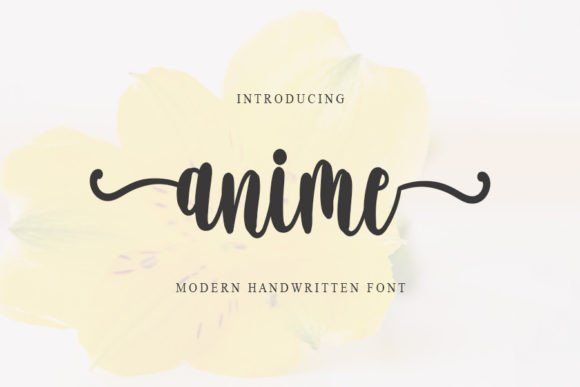
Discover the Timeless Charm of Anime Font
Who hasn’t had that moment when a beautiful font captures their imagination and sparks a creative idea? For many designers, that moment is what drives their passion for typography. It’s the thrill of the hunt for the perfect font that sets the tone for a project, and for those who’ve worked with it, Anime Font is a true gem.
Anime Font is a carefully crafted, handwritten font designed to evoke the charm of classic calligraphy while feeling refreshingly modern. Its elegant lines and curves make it perfect for a wide range of applications, from branding and advertising to editorial and digital design. As a versatile and stylish font, Anime Font is a valuable addition to any designer’s toolkit.
Anime Font Key Features
- Unique Characteristics: Anime Font features a distinctive, hand-drawn style with intricate details and flourishes, reminiscent of traditional Japanese animation.
Anime Font Review
Overall, I think the Anime Font is a fun and quirky addition to any design project. ✨ I love the playful, handwritten feel it brings to text, and it’s great for projects that need a bit of whimsy. It’s also super versatile and works well for both digital and print designs.
- ✨ The font’s unique style is perfect for anime or manga-inspired projects.
- ✨ It’s great for creating attention-grabbing headlines or titles.
- ✨ The font’s irregularities give it a hand-drawn feel that’s hard to replicate with other fonts.
- ⚠️ The font can be difficult to read at small sizes due to its irregular letterforms.
- ⚠️ It may not be the best choice for projects where readability is a top priority.
- ⚠️ The font’s quirky style may not be to everyone’s taste.
Overall, I think the Anime Font is a great choice for designers who want to add some personality to their projects. Just be sure to use it wisely and balance it out with more traditional fonts to avoid overwhelming the reader.
Tips for Getting the Most Out of Anime Font
Experiment with different font sizes, colors, and styles to achieve the desired effect.
Combine Anime Font with other fonts to create a unique and eye-catching design.
Use Anime Font in creative ways, such as in speech bubbles, thought clouds, or other design elements.
Anime Font is commonly used in:
Graphic novels and manga-style comics.
Video game titles and menus.
Animated films and TV shows.
Pop culture-inspired merchandise and branding.